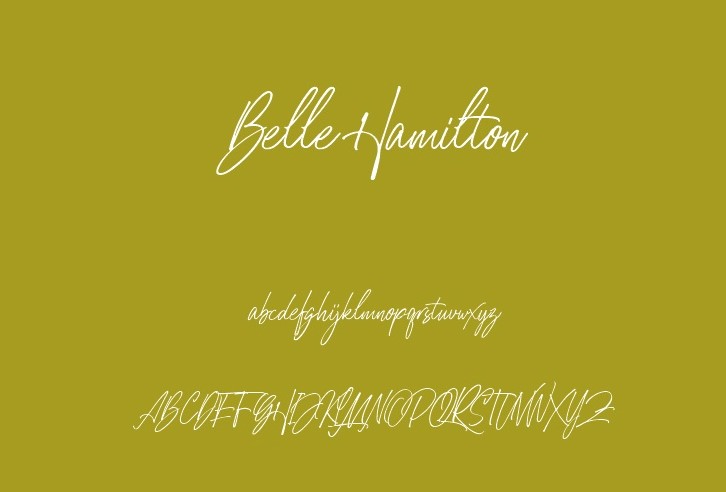
Belle Hamilton Font is a luxurious typeface that combines modernity with eye-catching script design. The font exudes elegance, with its designs resembling natural, handwritten textures.
You can use Belle Hamilton Font for make your designs more amazing and stylish. The font can create successful projects easily.